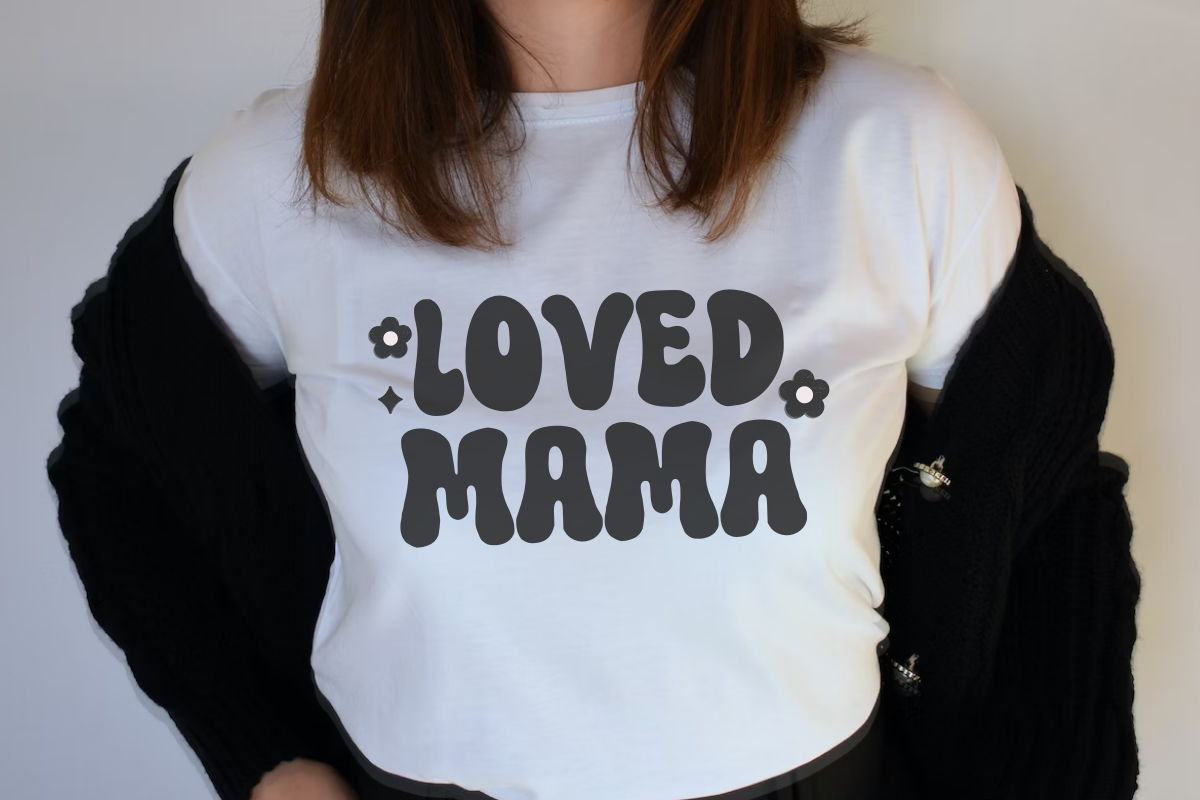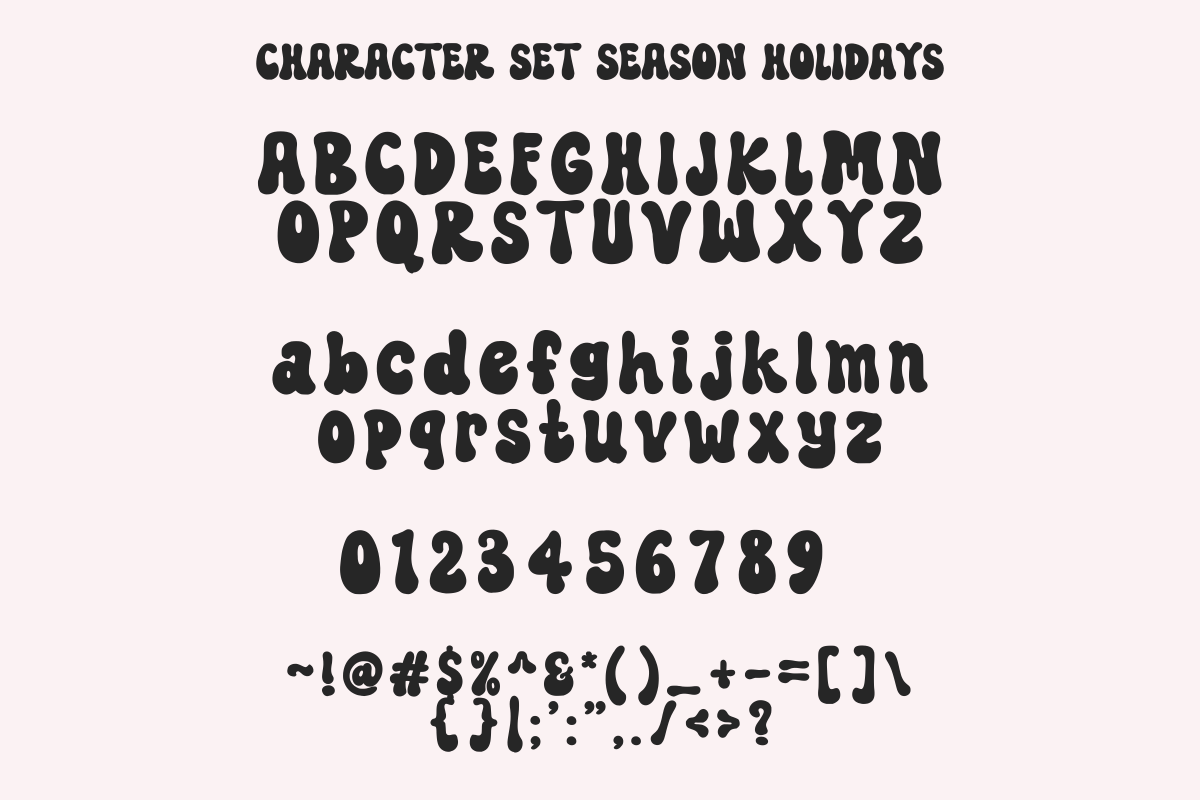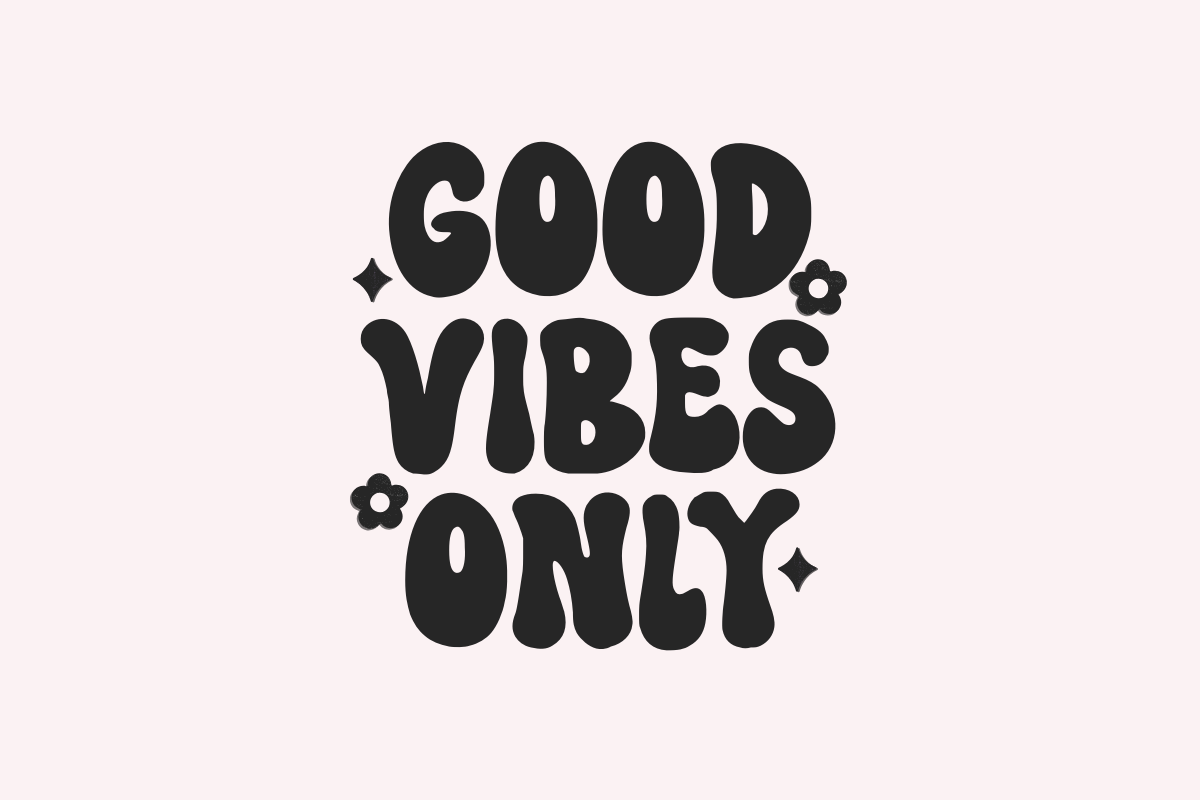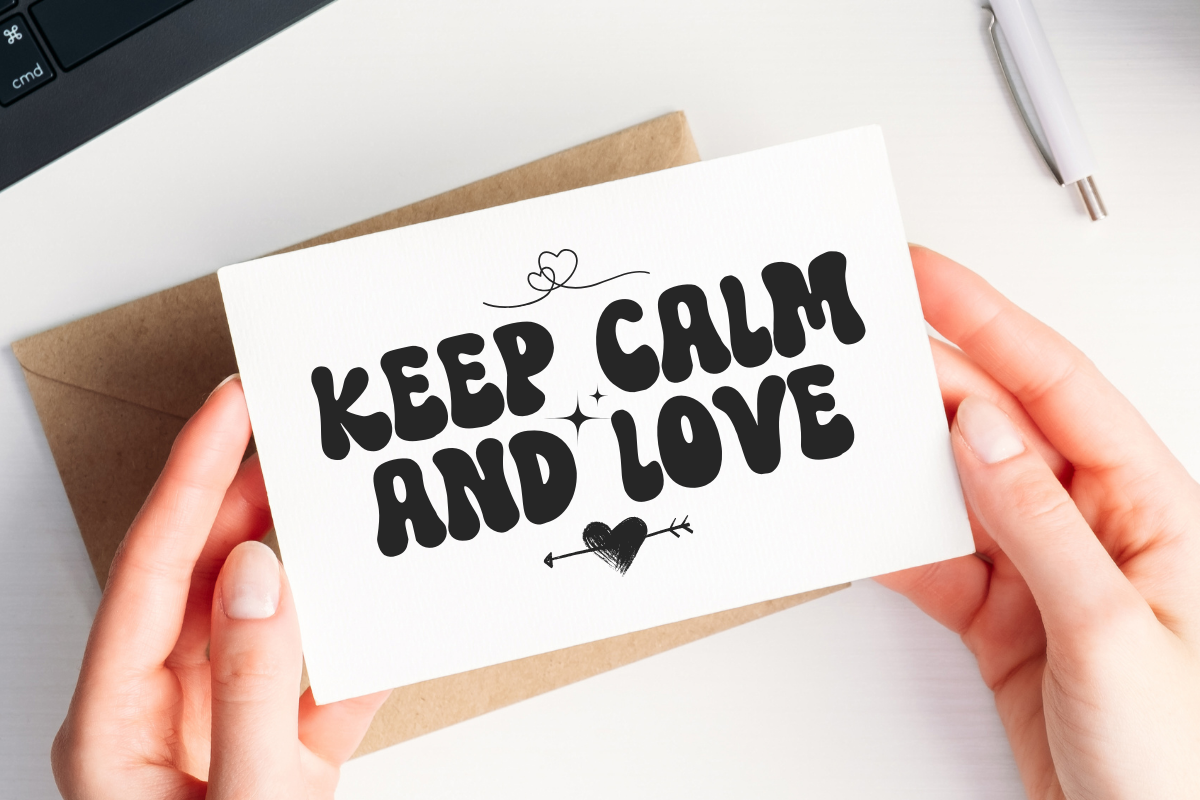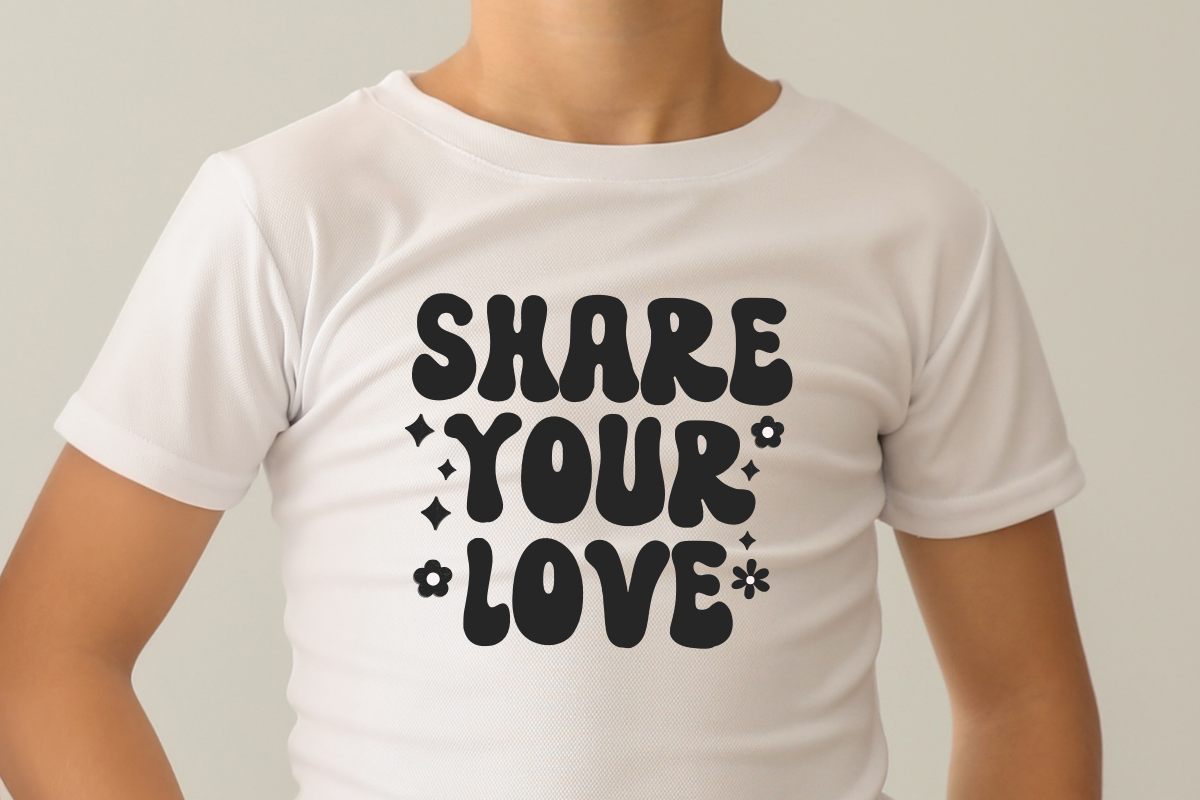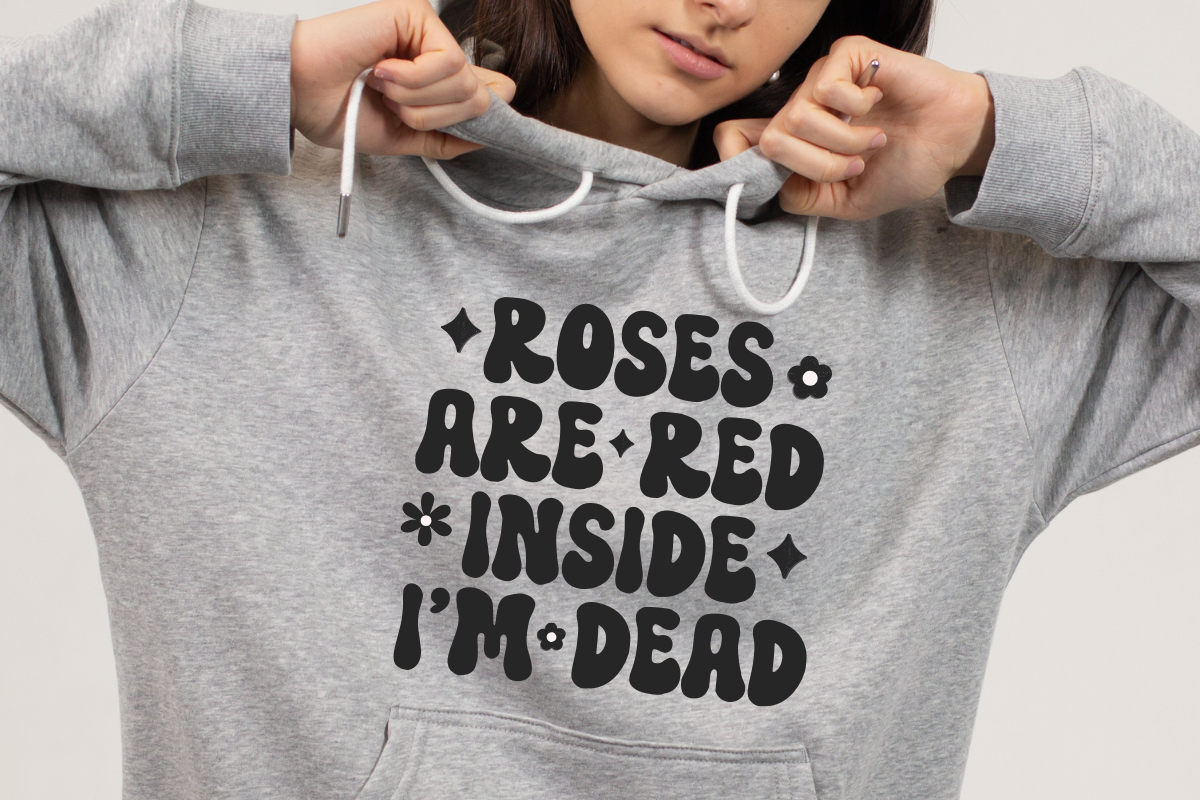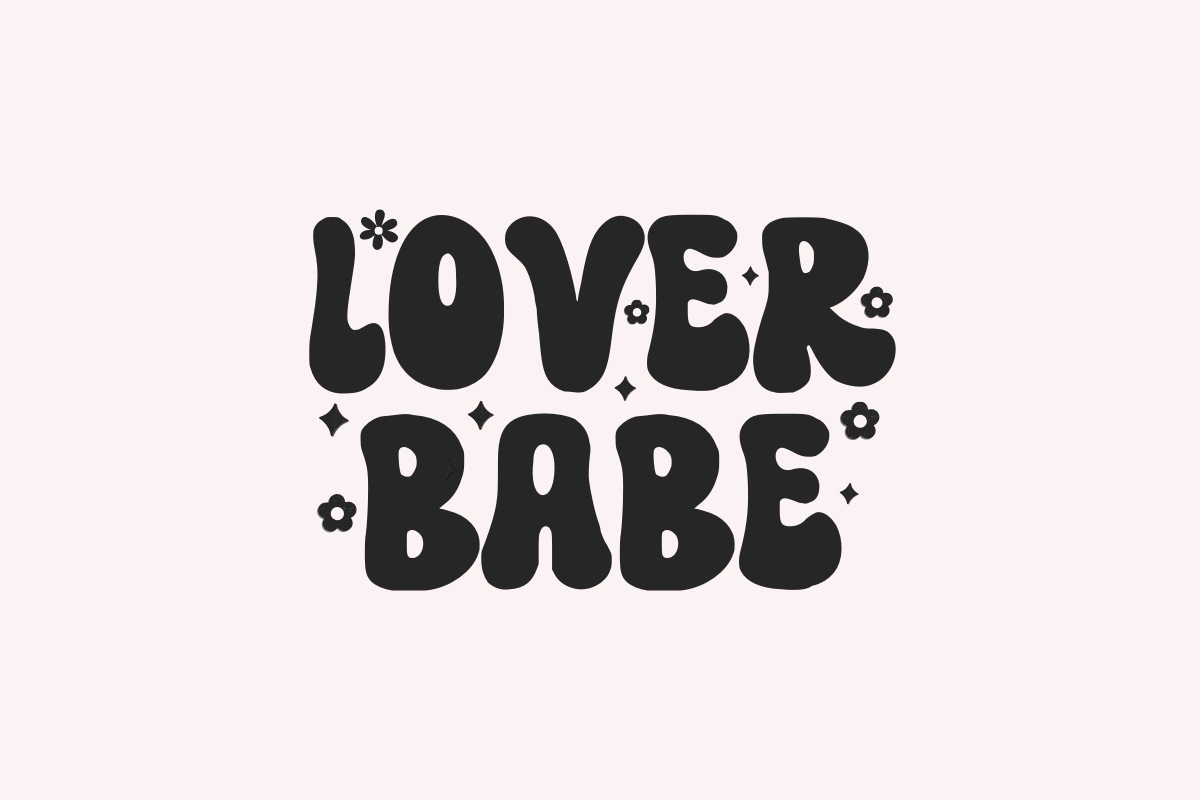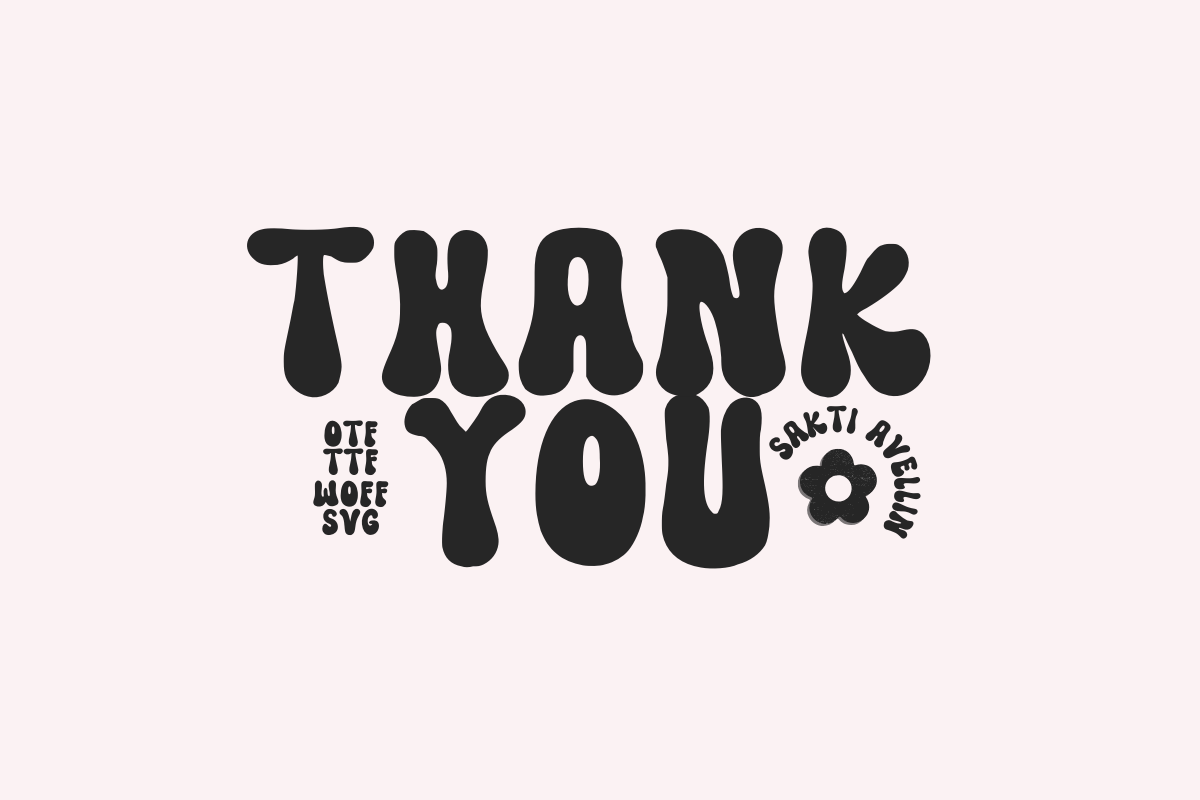
Peace Shine
Immerse your design in the charming throwback vibe of the Peace Shine typeface. Marked by its funky, retro flair, this font is an exceptional choice for pithy quotes and jovial messaging. Its breezy style lends itself excellently to eclectic t-shirt designs, tote bags that exude personality, whimsical greeting cards, cheerful mugs and any creative endeavor craving a splash of fun. Unleash your creativity and let your works sparkle with Peace Shine.